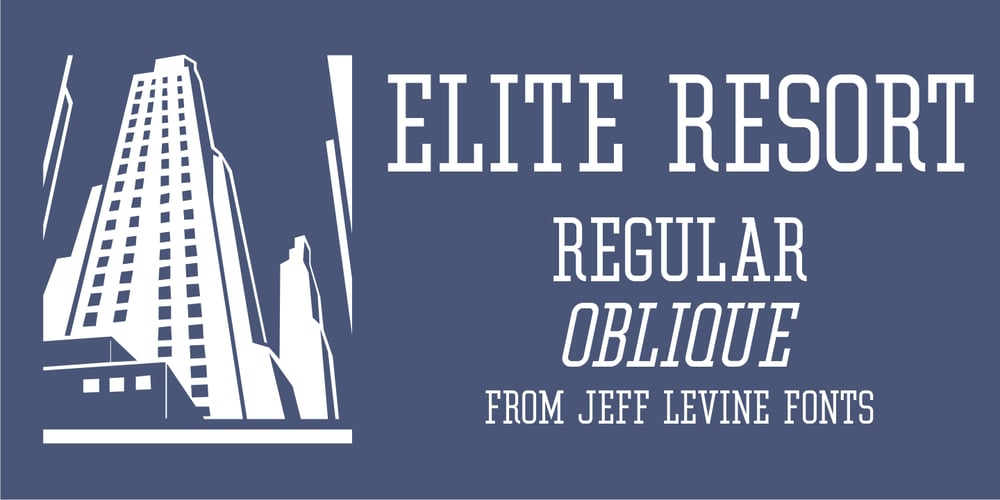
Elite Resort JNL Font Family was designed by Jeff Levine and published by Jeff Levine. Elite Resort JNL contains 2 styles and family package options. A 1940s sheet music edition of an early 1900s song entitled “You Taught Me How to Love You, Now Teach Me to Forget” was set in a popular metal type slab serif face. It is presented digitally as Elite Resort JNL, in both regular and oblique versions.